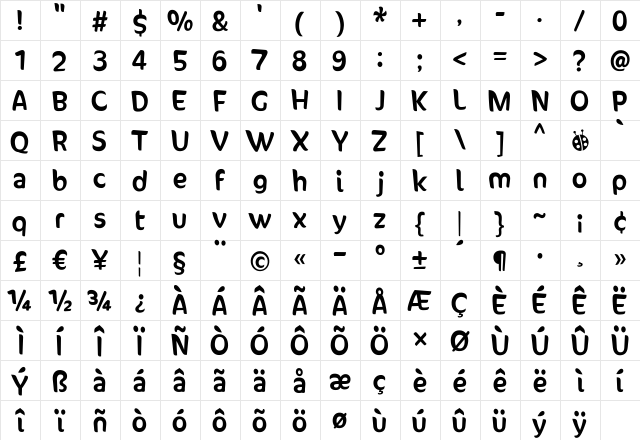
SunnySide Regular
Design Context for SunnySide Typeface
SunnySide offers clean, dependable letterforms without strong stylistic allegiance, making it a practical choice for designers who need flexibility.